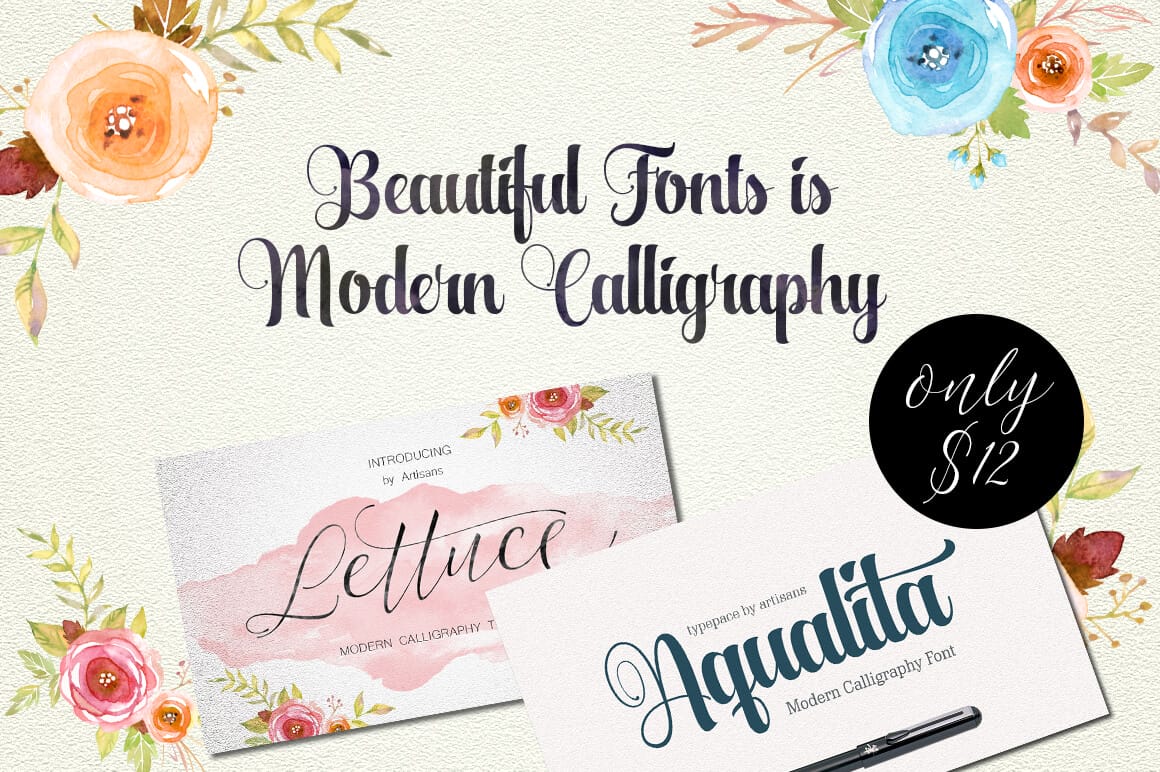
Add some serious elegance to your Typeface Library with this gorgeous Mighty Deal! You’ll get 2 beautiful modern calligraphy fonts for 1 low price: Lettuce and Aqualita. With an assortment of OpenType features including Standard Ligatures, Stylistic Alternates and Stylistic Sets, your latest project will really stand out with a real natural, elegant script style. From wedding invites to T-shirts, your choices are virtually limitless!
Lettuce
A gorgeous modern calligraphy font, Lettuce was designed by hand to give it a truly natural feel.
- Includes 354 unique glyphs, including 185 alternates.
- OpenType Features: Standard Ligatures, Stylistic Alternates, and Stylistic Sets.
- Perfect choice for wedding invitations, logos, headings, signage, labels, badges, posters, T-shirts and more.
- Light and airy style will give your designs a truly fresh breath of air.
Aqualita
As a bold and italic modern calligraphy font, Aqualita sports a flexible character to give it a strong-yet-beautiful appearance.
- OpenType Features include: Standard Ligatures, Stylistic Alternates, Stylistic Sets and Ornaments.
- Mix up the Regular and Italics modes for emphasis within your designs.
- Another great choice for wedding invitations, logos, headings, signage, labels, badges, posters, T-shirts and more.